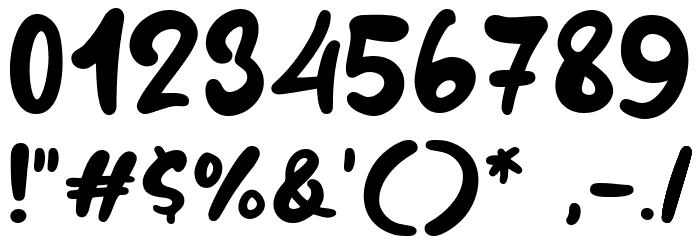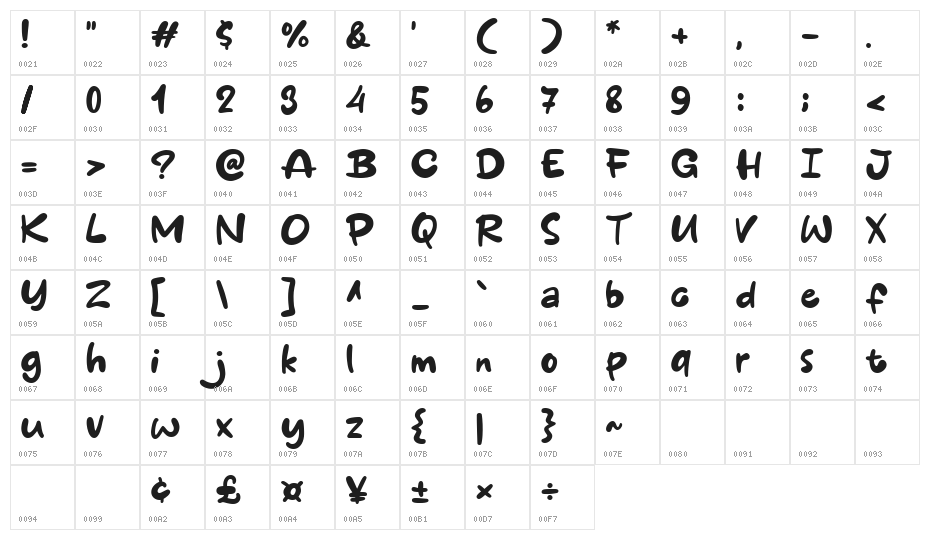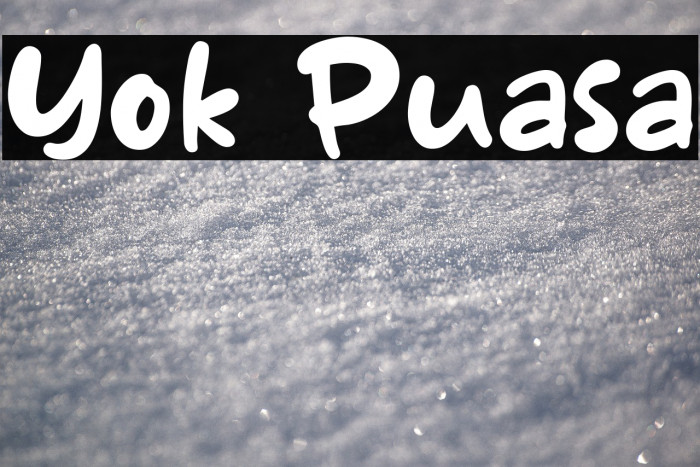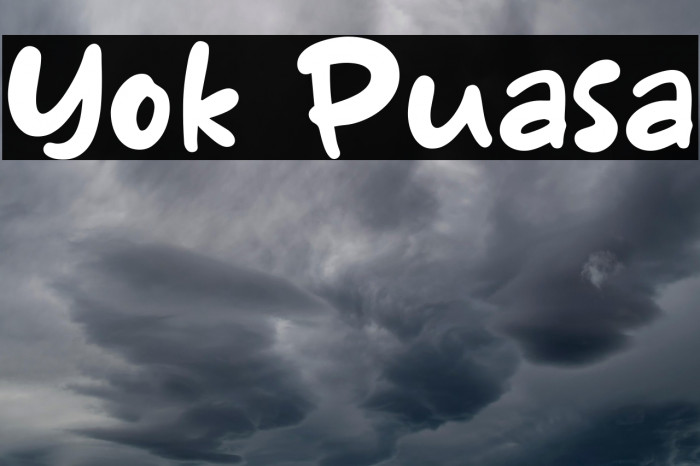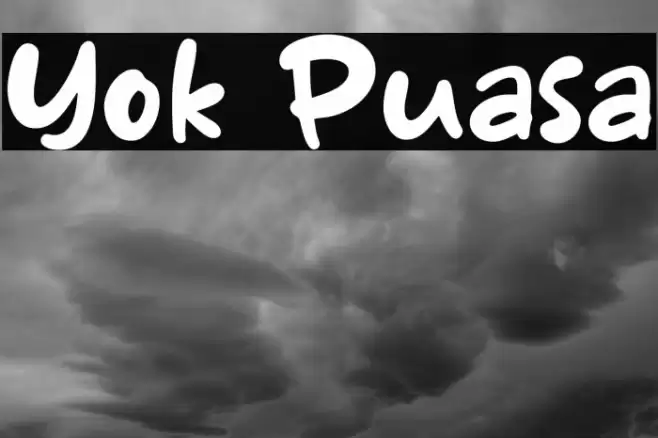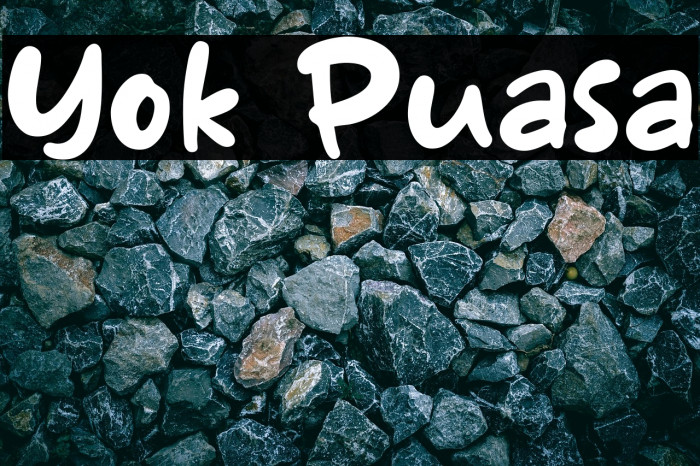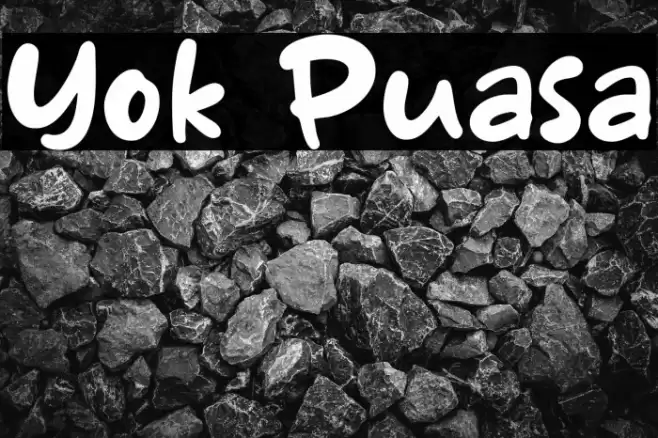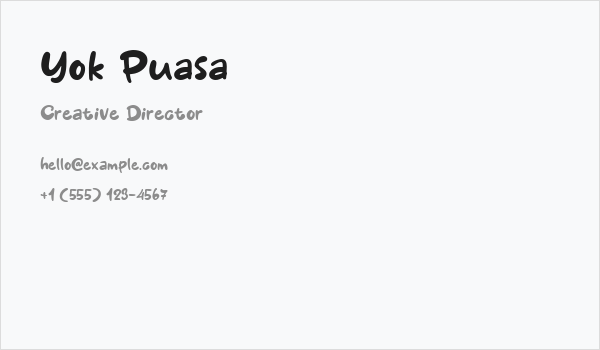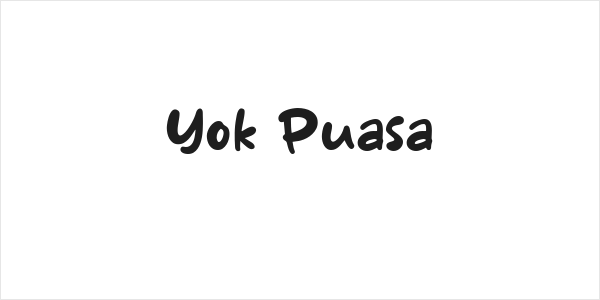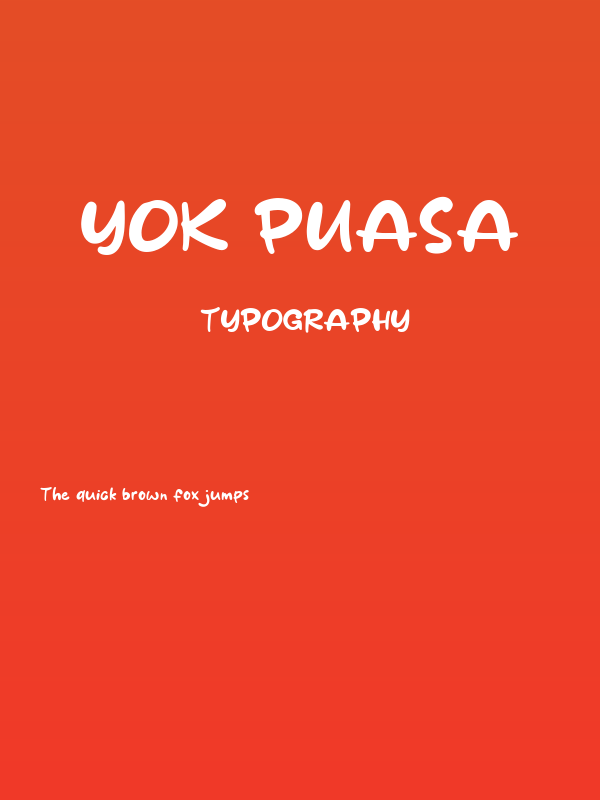
Yok Puasa Font
Yok Puasa Description
This font features a playful and bold handwritten style, characterized by its rounded and slightly irregular letterforms. The uppercase and lowercase letters maintain a consistent flow, with a casual and friendly appearance. The numbers and special characters follow the same aesthetic, making the font versatile for various uses. Its bold strokes and informal style make it suitable for projects that require a personal touch or a fun, approachable vibe. The font's design is both eye-catching and easy to read, making it ideal for creative and informal applications.
| Proposed Projects | Ideal for greeting cards, children's books, playful branding, and social media graphics. |